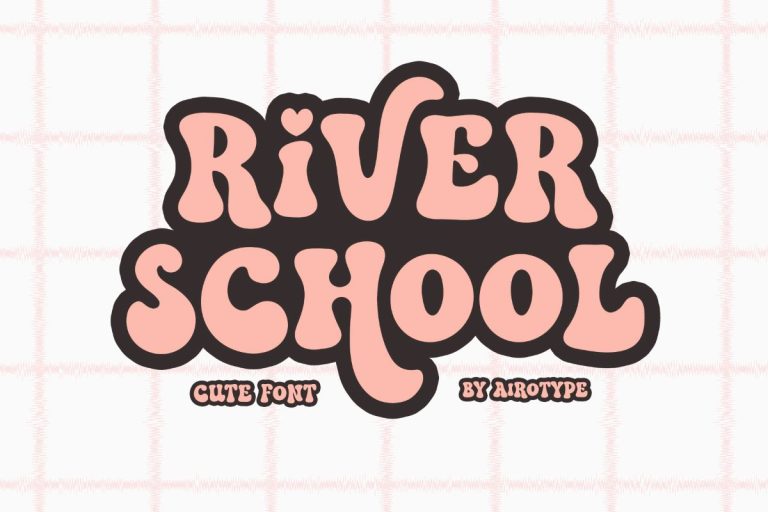
- River School
River School is cute, bold, and bubbly retro font. It has playful and vintage vibes.
It has some extra glyphs/alternates for uppercase and lowercase to give more options in designing.
This font is pretty festive font for design with cute and retro touch, such as back to school design, kids design, birthday invitation, summer design, vintage design, t-shirt design, crafting, sticker, sublimation, and many more.